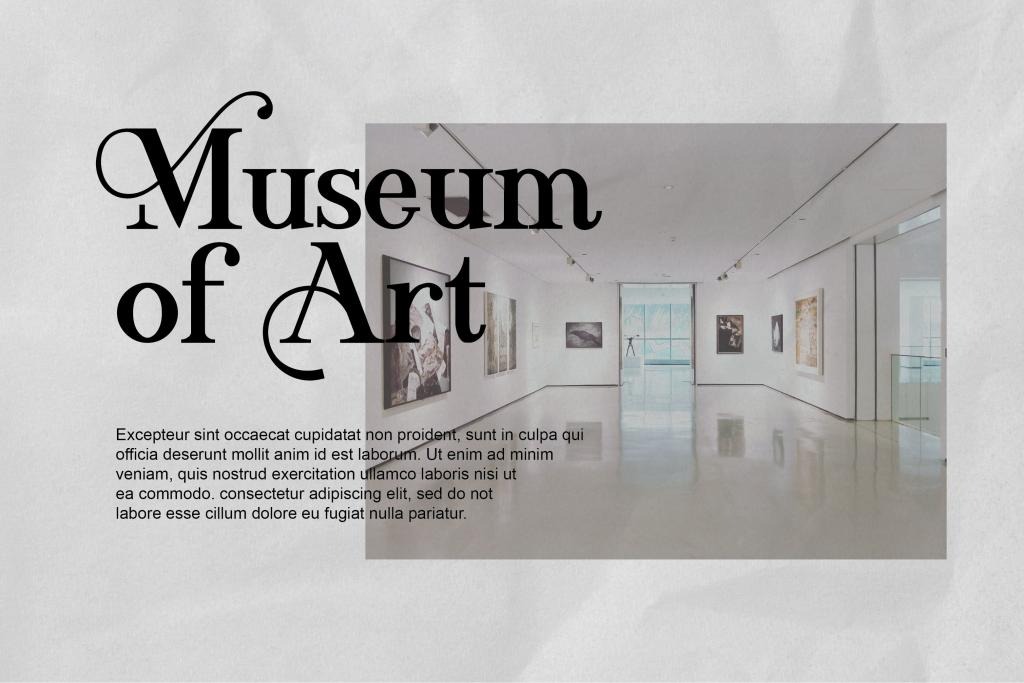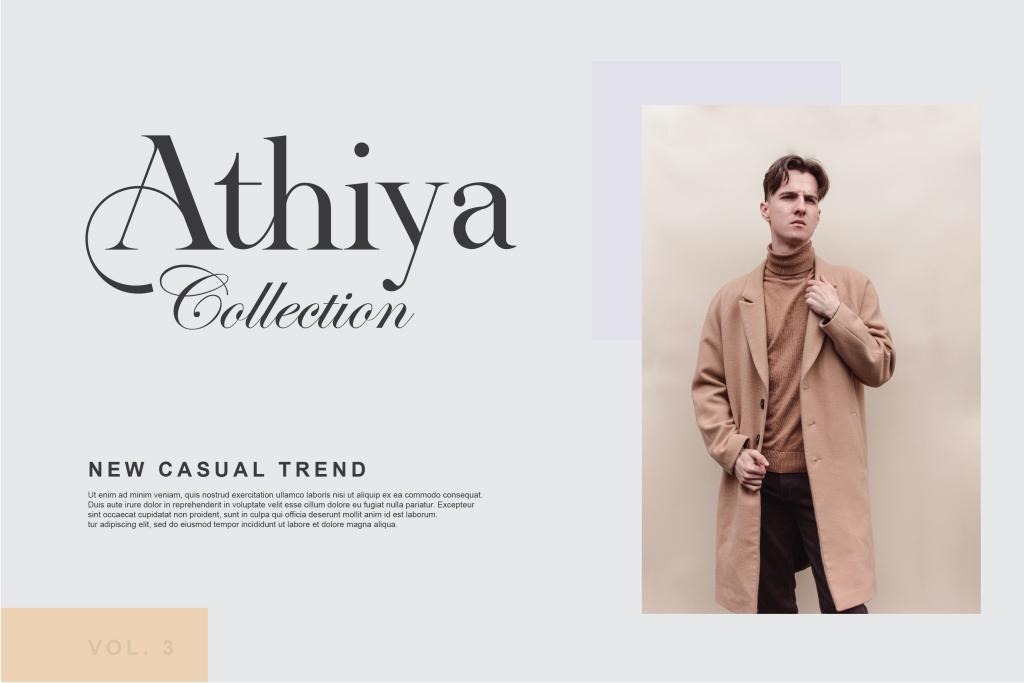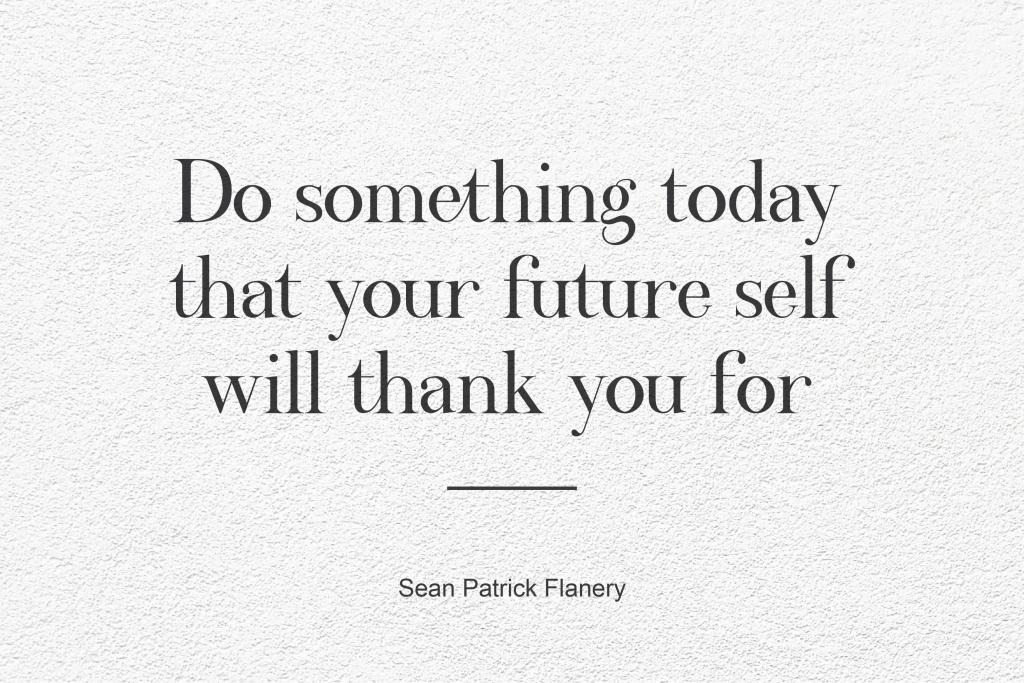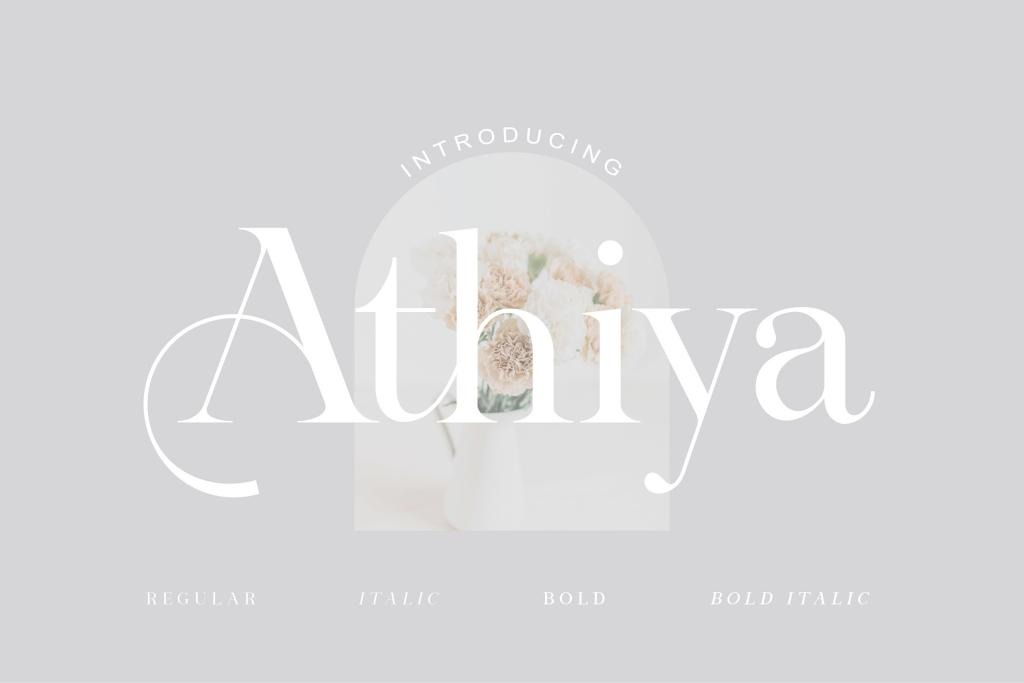
Athiya Font
Athiya Serif Font
This is sharp serif font with an elegant feel. It’s designed and shared by rmdndsign. This elegant serif font will add a touch of luxury and style to your branding and logo design projects. This font is PUA encoded which means you can access all of the amazing glyphs and ligatures with ease!